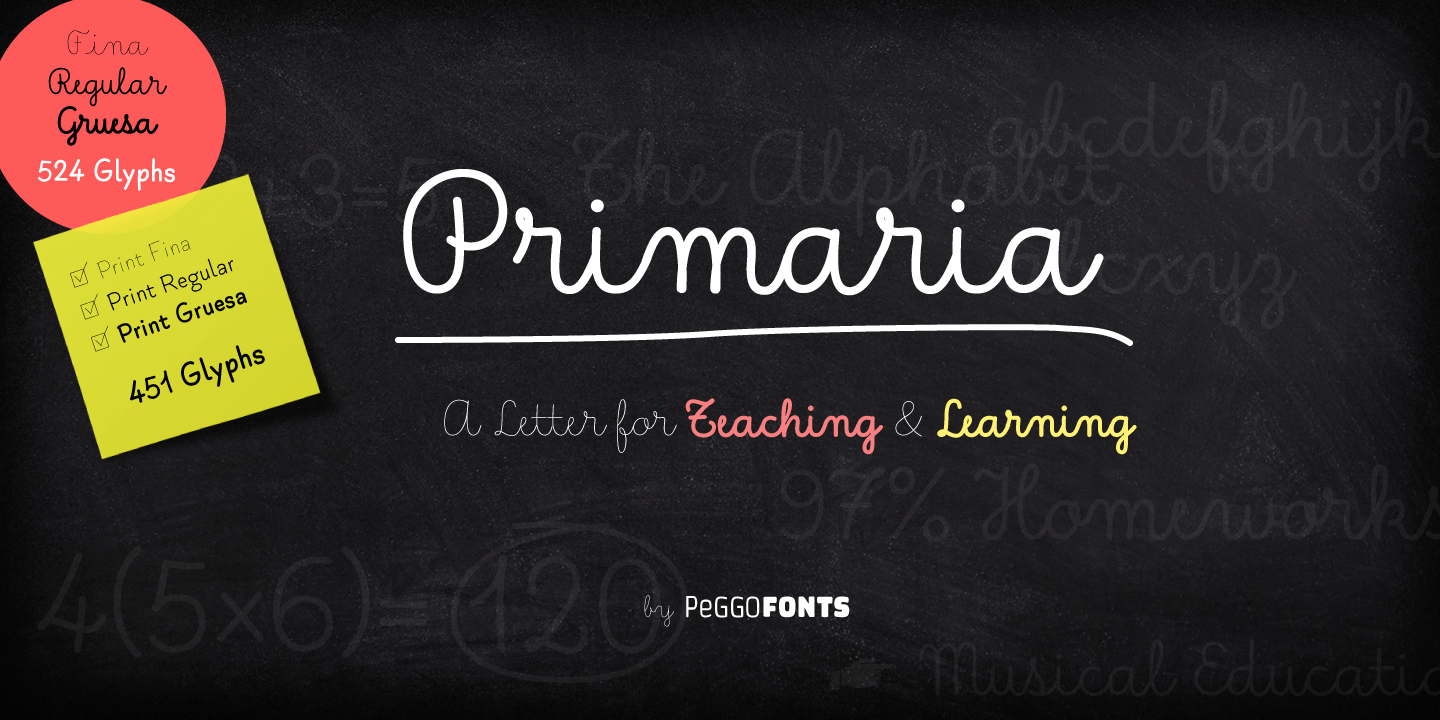
Primaria Font is perfect for educational materials, children's book design, school branding, learning apps, toy packaging, daycare signage, nursery decor, elementary textbooks, playground graphics, and youth-oriented marketing campaigns. This friendly typeface creates an approachable and engaging atmosphere for educational and child-focused design projects.
What makes Primaria Font exciting is its perfectly balanced combination of playfulness and professionalism that speaks directly to young audiences while maintaining credibility with parents and educators. The font features rounded letterforms, gentle curves, and optimized spacing that enhance readability for developing readers. Its warm, inviting character makes learning materials more accessible and enjoyable, while its clean construction ensures excellent performance across both digital learning platforms and traditional print materials.
The Primaria Font family includes light, regular, medium, and bold weights, along with playful display variations that offer additional creative possibilities. Each style maintains the signature friendly appearance while providing different levels of emphasis for effective educational hierarchy and engaging content organization.
Create compelling educational experiences with Primaria Font Free Download and connect with young learners through thoughtful typography design. This professionally developed typeface combines child psychology insights with typographic excellence, ensuring optimal readability for developing literacy skills. The font's comprehensive character support includes educational symbols and multilingual capabilities, making it perfect for diverse learning environments. Whether you're designing curriculum materials, educational apps, or child-focused branding, this font delivers the perfect blend of fun and functionality that makes learning memorable and effective.